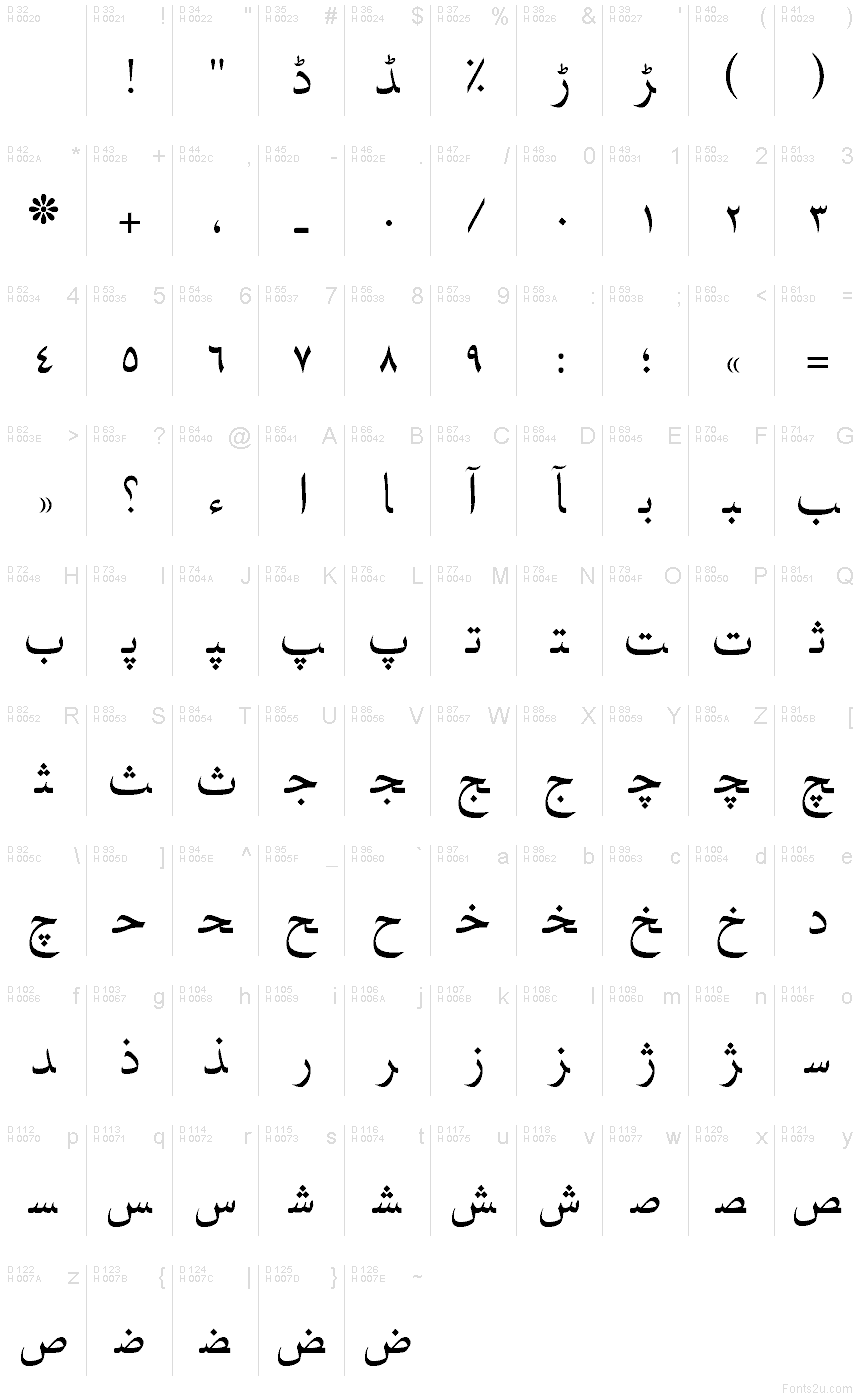
ETTUrduNaskhSSK font by Pierro De Leo is a classical, traditional typeface with calligraphic influence. The free Arabic font is sophisticated and elegant, encompassing a variety of characterization which can add subtle quality to any design.
Whether you’re working on headlines, posters, banners, book covers, event titles or anything of the sort; consider ETTUrduNaskhSSK for an excellent outcome.